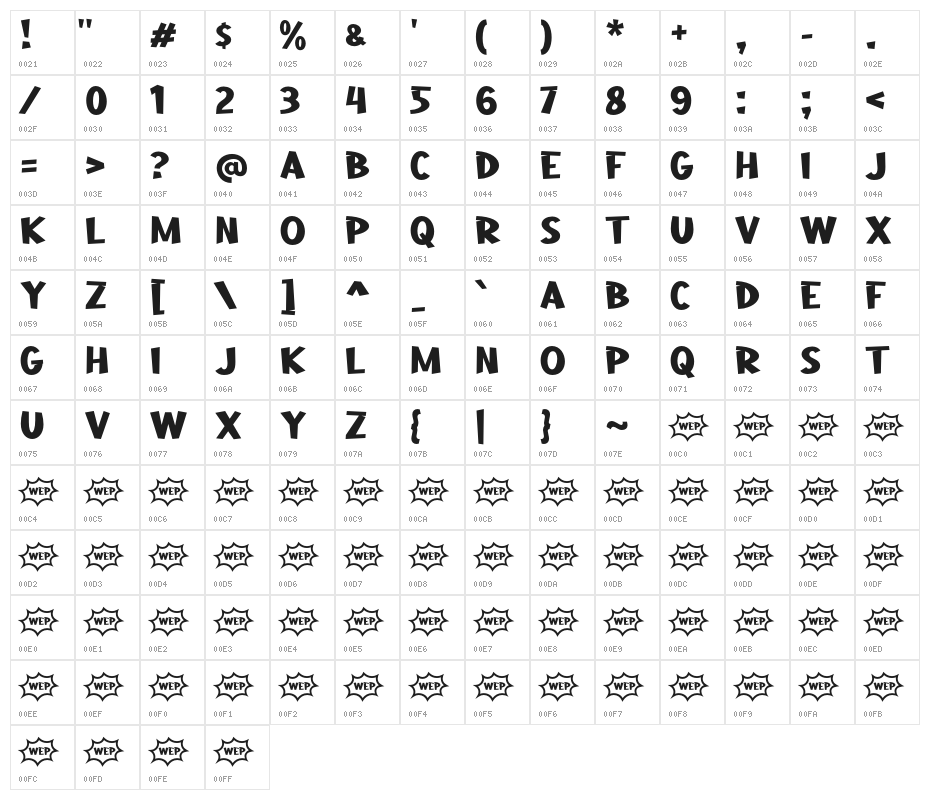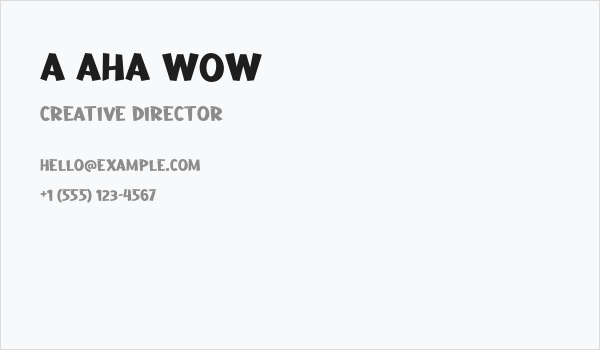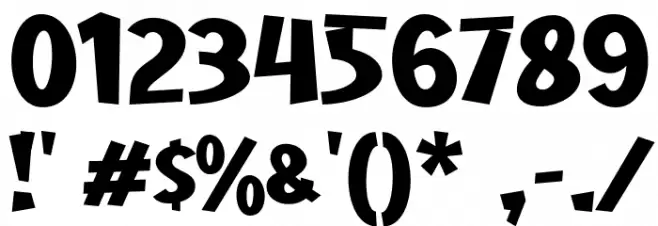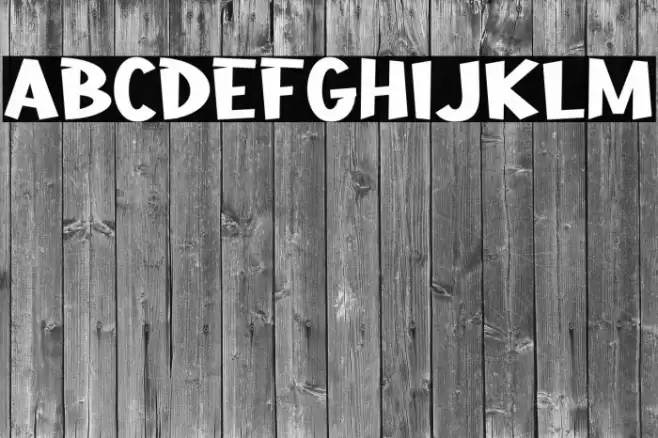
a Aha Wow Font
| Style général | Playful, Energetic |
| Projets proposés | Ideal for children's books, comic strips, playful branding, and eye-catching headlines. |